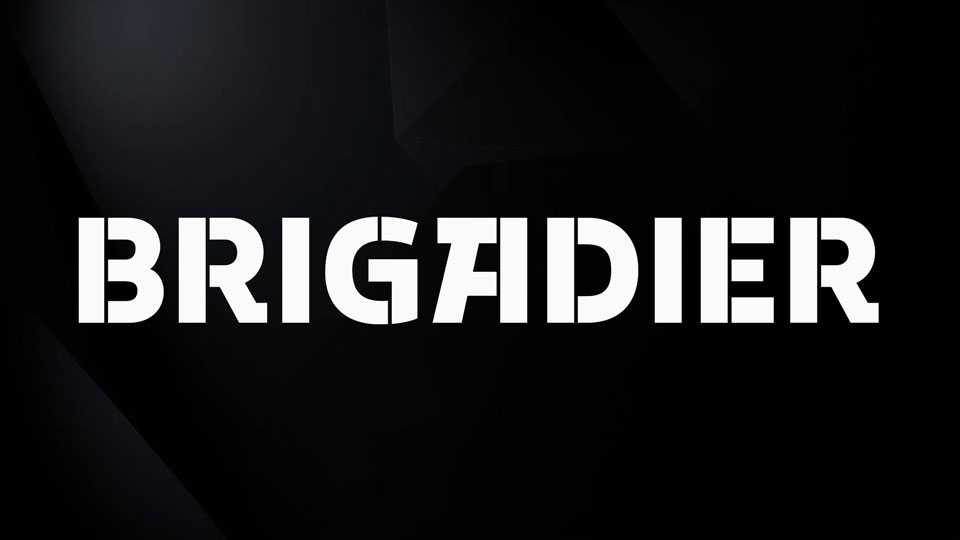
Download Brigadier font, a bold and commanding display typeface built with a strong geometric structure and distinctive stencil-inspired cuts.
Designer: Vasiliy Shishkin